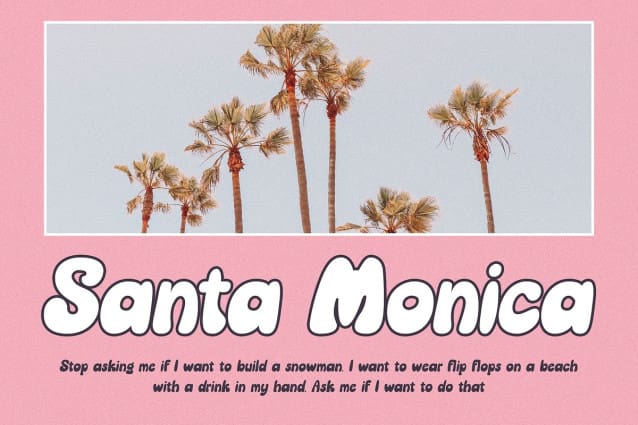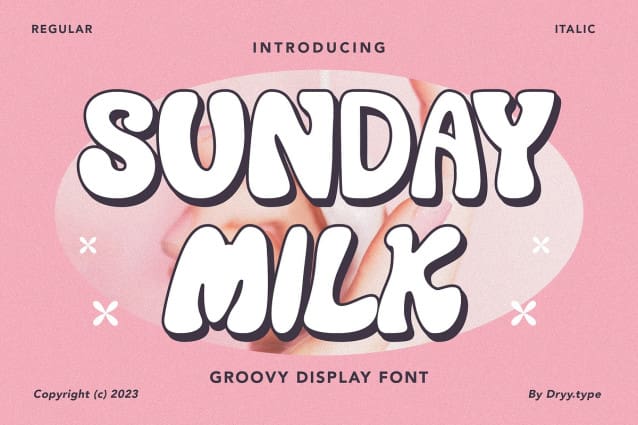
Sunday Milk Font
Sunday Milk Font, a unique and groovy display font. This font I created has been very much used this year & is very versatile, it goes well with a variety of designs, elevating it to the highest level. Add this font to your favorite creative ideas and see the results!